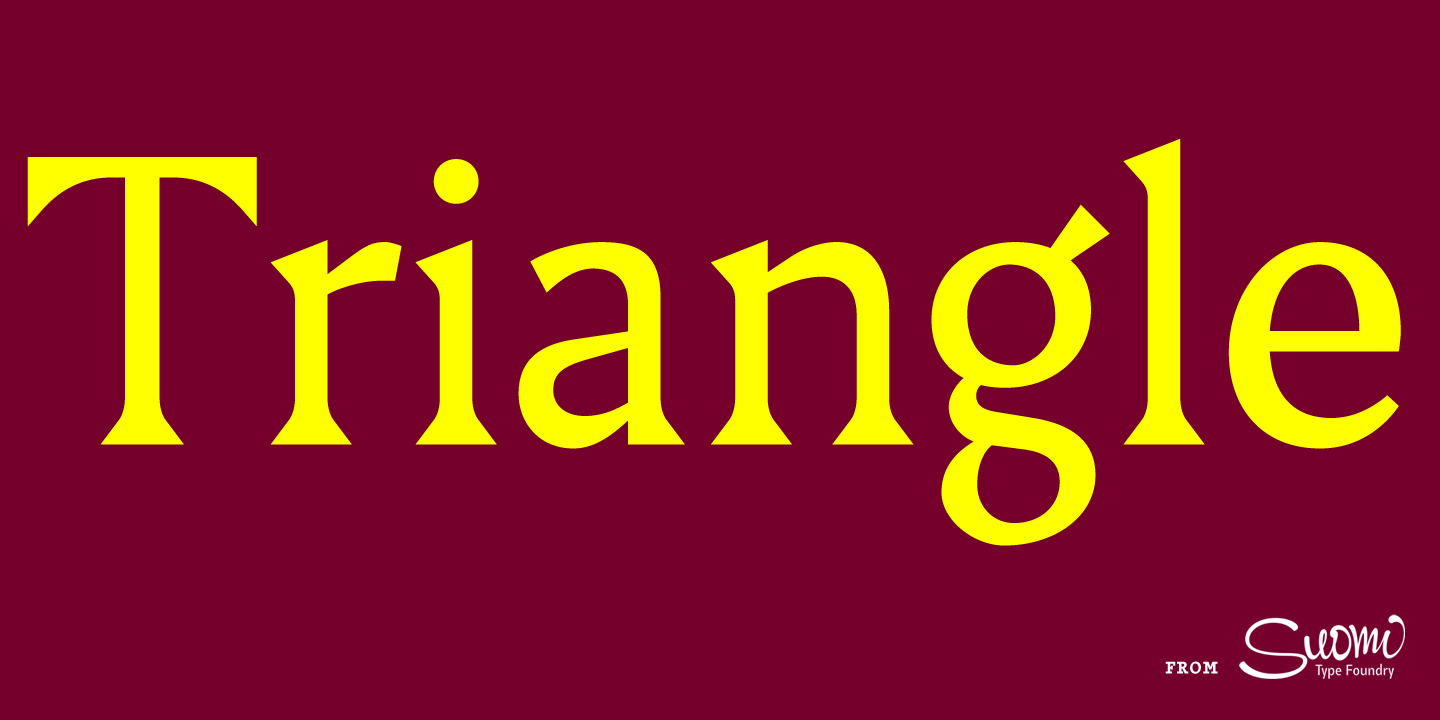
The Triangle Font is incredibly versatile, making it an excellent choice for a wide range of design projects that aim to convey a modern, geometric, and often minimalist aesthetic. Imagine it bringing a sharp, contemporary edge to tech branding and logos, making architectural presentations pop with precision, or adding a sleek touch to editorial designs for innovation-focused publications. It's also fantastic for crafting abstract art prints, unique event posters, and bold social media graphics that demand attention with their distinctive structure. Its inherent clean lines and angular forms make it perfect for any project striving to communicate clarity, structure, and a forward-thinking design philosophy.
What makes Triangle Font so exciting is its unique ability to integrate sharp, geometric forms into readable and impactful typography. It often features letterforms constructed with prominent triangular elements or a consistent angularity that gives it a distinct, almost architectural feel. This font doesn't just display text; it builds a visual statement, making your message feel precise, innovative, and highly graphic. Its balance of strong visual presence and functional clarity ensures that your designs are not only eye-catching but also effectively convey their intended message. It's a typeface that brings an atmosphere of structured modernity and cutting-edge design to your typography, guaranteeing your projects leave a powerful and memorable impression.
The Triangle Font family typically includes a range of weights and stylistic alternatives to provide extensive creative flexibility. While specific options can differ, you can generally expect to find alternatives like Regular, Bold, and potentially a Light or Outline version, each emphasizing its distinctive geometric qualities. These different weights and stylistic sets allow you to create dynamic visual hierarchies and add nuanced artistic flair to your typography, ensuring a cohesive and thoughtfully designed outcome. This comprehensive family support ensures that whether you need a strong, impactful headline or a subtle, precise accent, Triangle Font Free Download offers the perfect elements to bring your geometric vision to life.